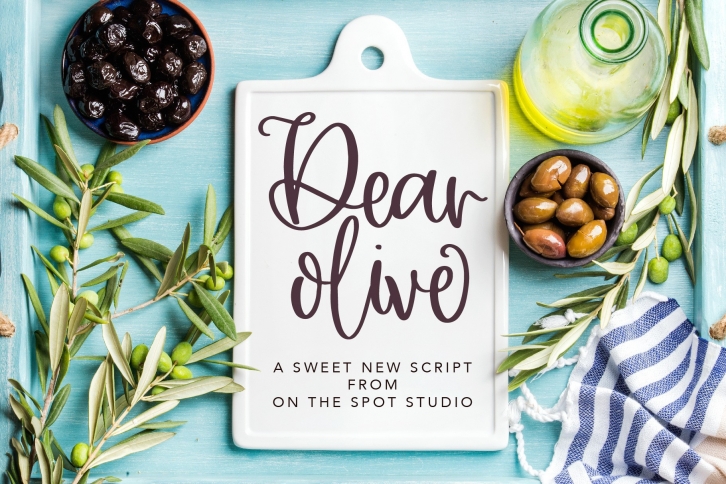
Dear Olive is a beautiful font that was designed by On The Spot Studio. It's a great choice for designers and creatives who need such a font. It was released on April 24, 2019 and the file size is 12.85 MB. Dear Olive may give a more youthful, expressive and casual look to your project. It is a very beautiful, refined, elegant, and high-quality font.